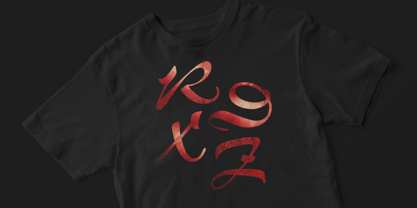
Corrida
by ParaType
Corrida Font Family was designed by Elvira Slysh and published by ParaType. Corrida contains 1 styles.
Designed for ParaType (ParaGraph) in 1989 by Elvira Slysh. Based on Slogan of Ludwig & Mayer type foundry, 1959, by Helmut Matheis. An informal flowing script simulating pointed brush calligraphy. A style of medium weight and coherent lowercase. For use in advertising and display typography.